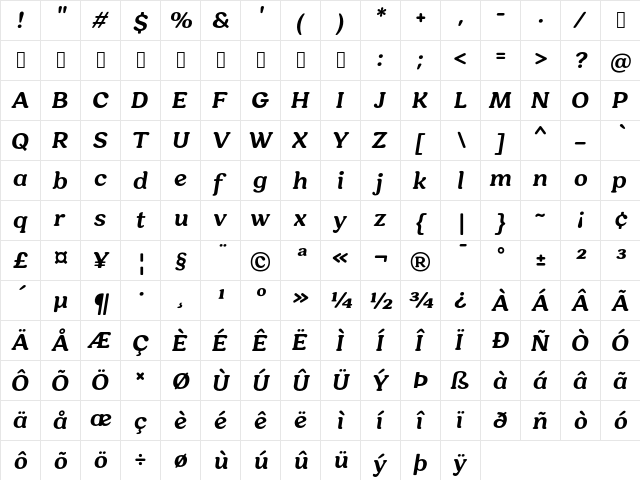
Hornbill Personal Use Bold Italic Font Preview
Design Context for Hornbill Personal Use Typeface
Hornbill Personal Use offers clean, dependable letterforms without strong stylistic allegiance, making it a practical choice for designers who need flexibility. Its italic angle brings a sense of urgency and motion to the letterforms. The heavy weight commands attention and anchors typographic hierarchies.
Pro Tip: Use Hornbill Personal Use for emphasis, pull quotes, and subheadings where its slanted energy can add rhythm to the layout.